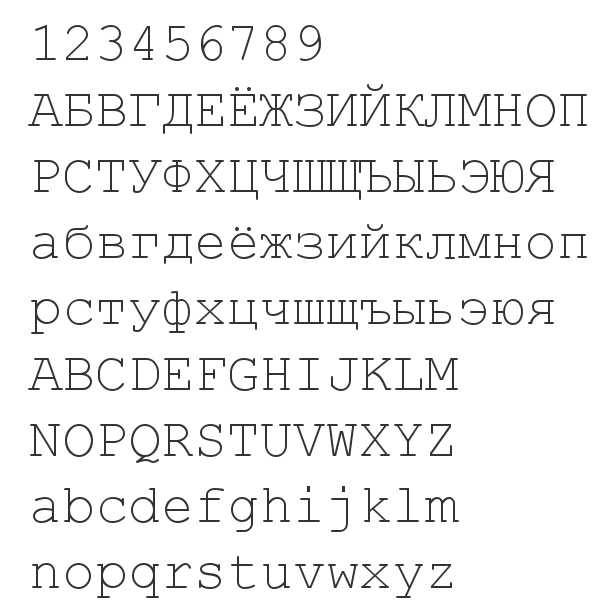
Font Courier New Regular
Font Courier New Regular. Check out examples of the courier new regular font at azfonts. Discover and customize the font courier new and other similar fonts, ready to share in facebook and twitter.
Courier font pairings about description courier is a monospaced typeface for use in tabular material, technical documentation, and word processing. Check out examples of the noxchi courier new regular font at azfonts. Bm did not trademark the name courier, so the typeface […]